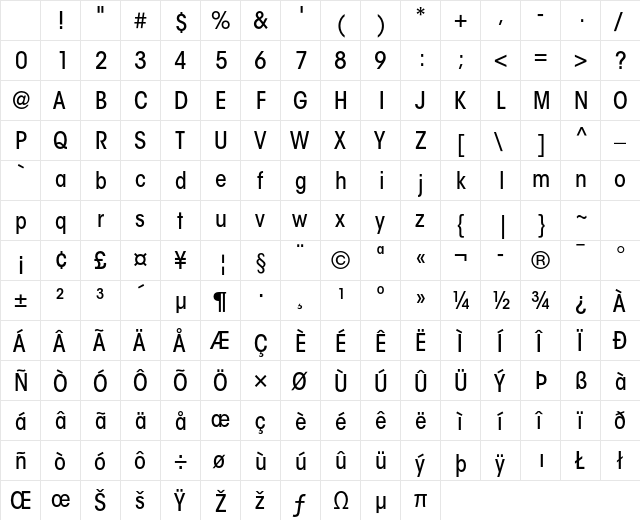
ITC Avant Garde Gothic Std Medium Condensed
Style: Medium Condensed
Designer: Herb Lubalin, Tom Carnase, Ed Benguiat, Adobe Type Staff
Design Context for ITC Avant Garde Gothic Std
ITC Avant Garde Gothic Std takes a clean, functional approach - its unadorned letterforms prioritise legibility and work reliably across screen and print environments. Its narrow stance lets it pack a punch even in space-constrained designs.
Font Pairing: Works well alongside a characterful serif or display font that can carry the expressive load while ITC Avant Garde Gothic Std handles the functional copy.
Pro Tip: Use ITC Avant Garde Gothic Std tightly set in headlines and banners - its condensed proportions make it ideal for maximum impact in minimum horizontal space.